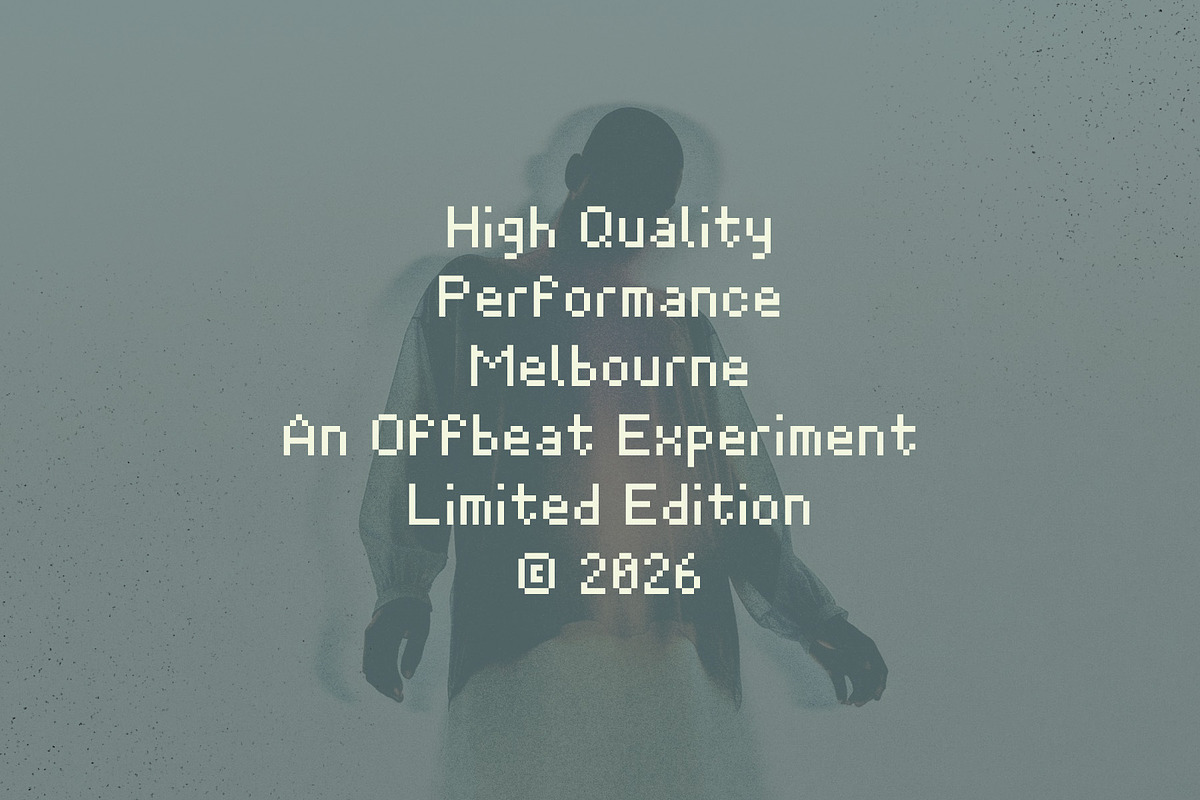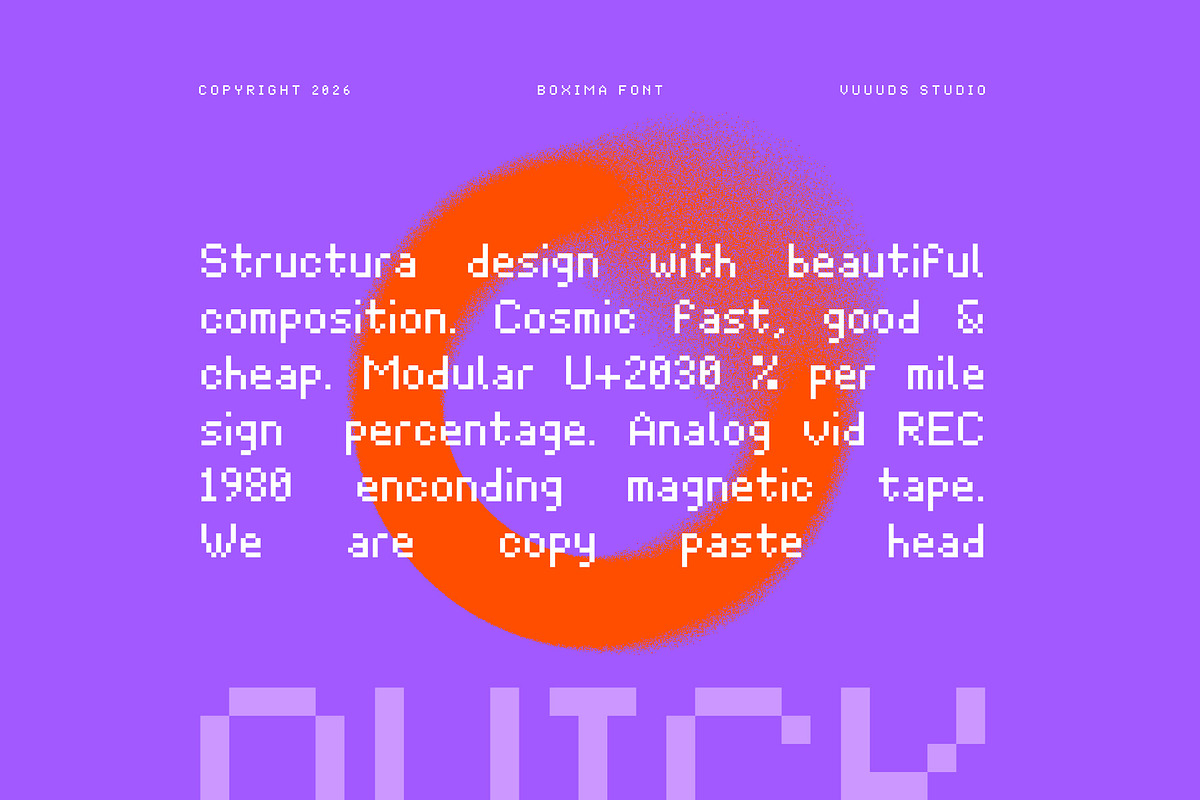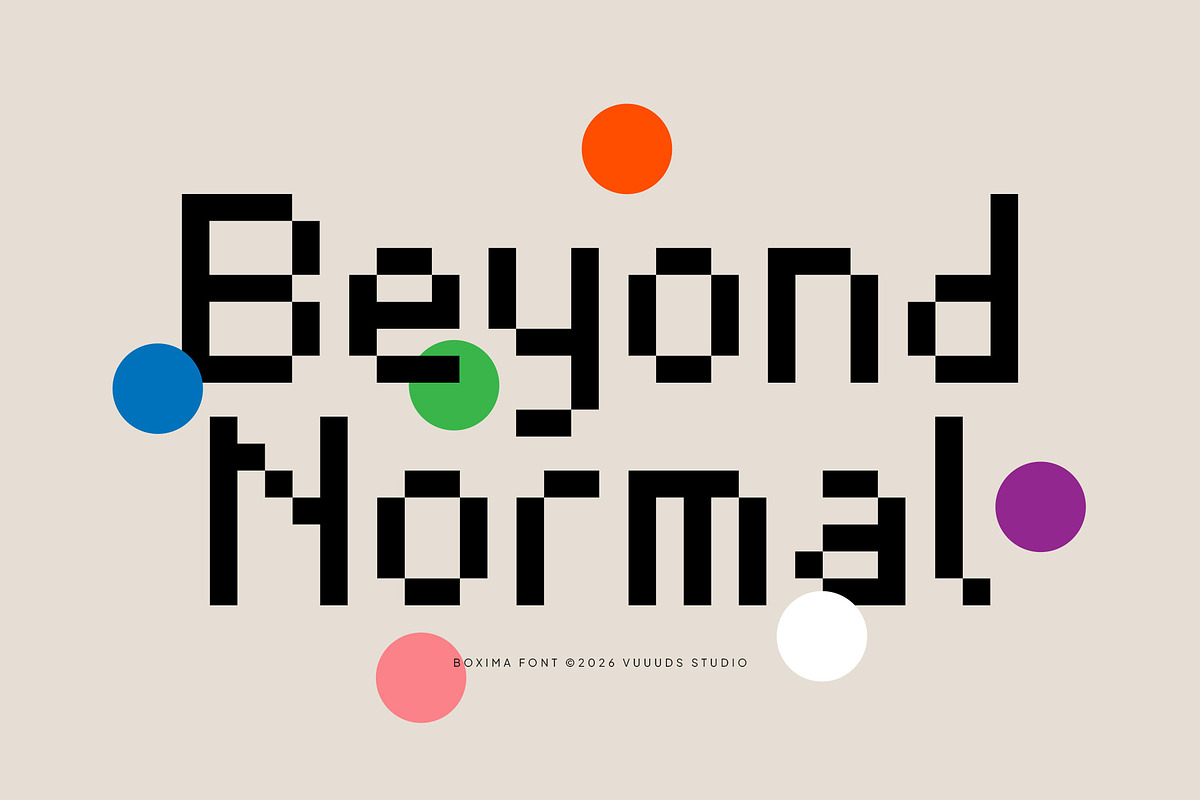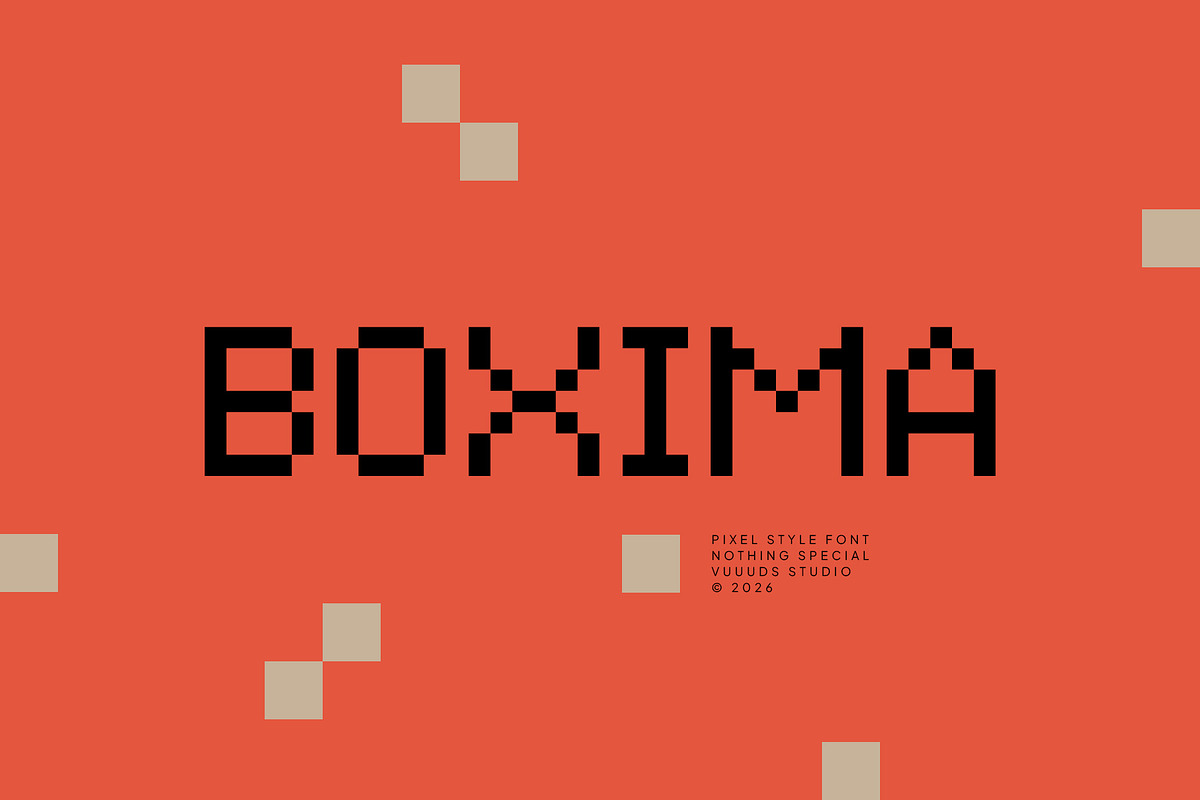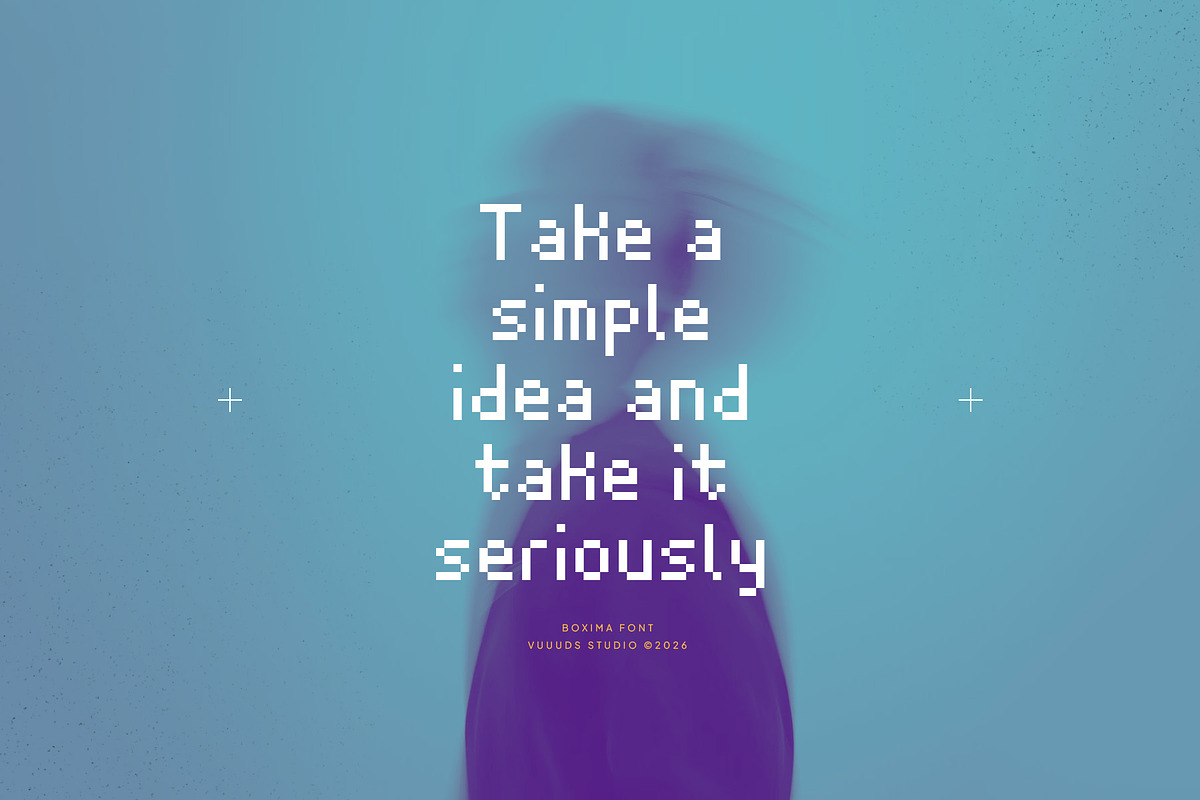
Boxima
Introducing Boxima Font!
Henus is pixel font, every single letters have been uniquely crafted.
Multi languages support:
ÀÁÂÃÄÅÆÇÈÉÊËÌÍÎÏÐÑÒÓÔÕÖØÙÚÛÜŸÝ
àáâãäåæçèéêëìíîïðñòóôõöøùúûüýÿ